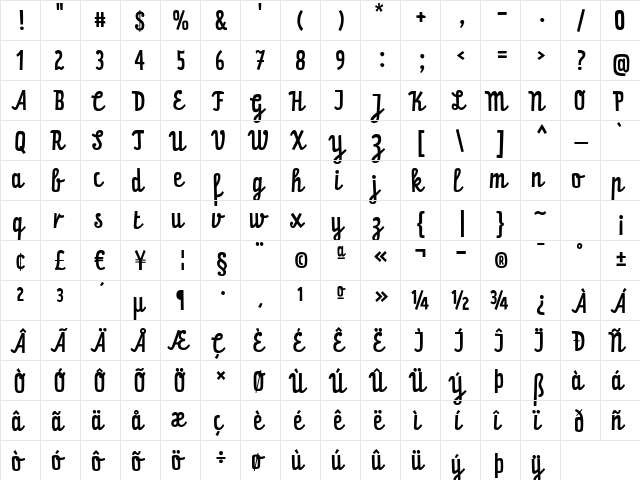
PraterScriptTwoRegular Regular
Design Context for PraterScriptTwoRegular Typeface
PraterScriptTwoRegular flows with the natural rhythm of handwritten lettering, making it ideal for designs that call for warmth and personal expression.
Font Pairing: Combine PraterScriptTwoRegular with a simple geometric sans for maximum contrast — the tension between flowing curves and clean structure is a classic typographic pairing.
Pro Tip: Use PraterScriptTwoRegular for short runs of text — names, titles, or taglines. Extended body copy in script faces tires the eye quickly.